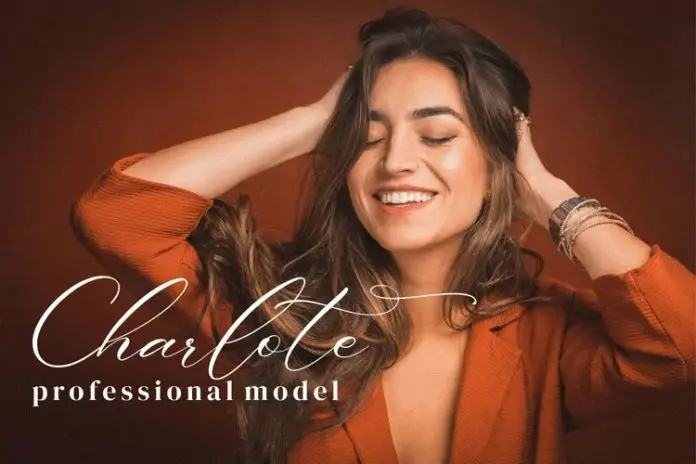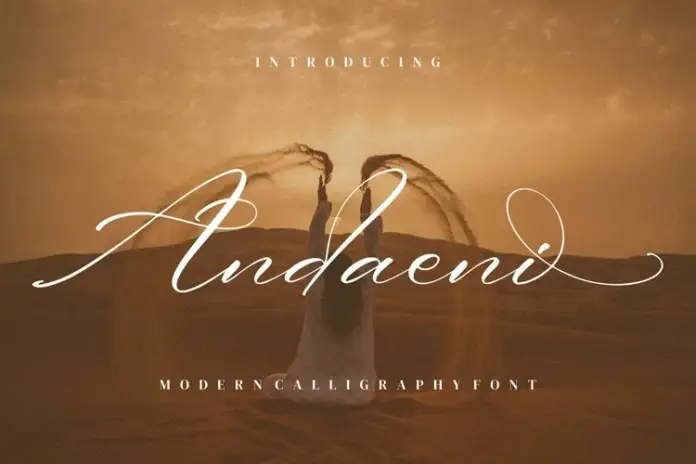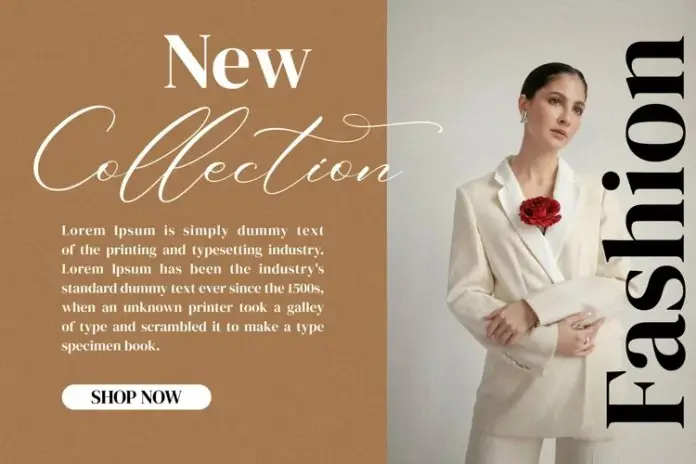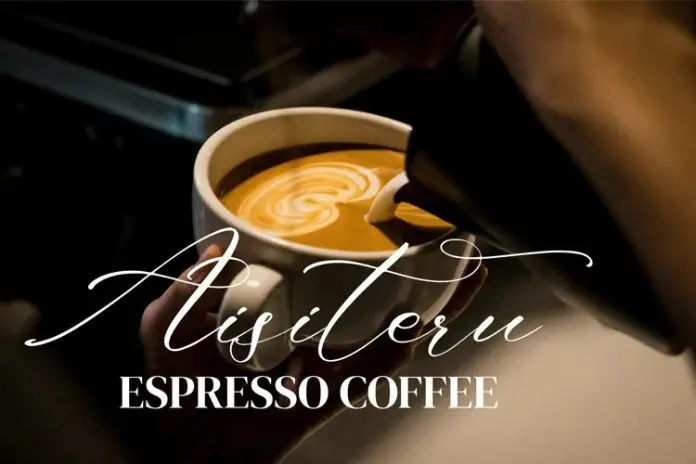
Andaeni Calligraphy Font
The Andaeni Calligraphy Font is a beautifully crafted typeface that embodies elegance and sophistication. Perfect for a variety of applications, this font is ideal for branding, logos, invitations, and any project that requires a touch of artistry.
• Stylish calligraphy design
• Easy to read and aesthetically pleasing
• Ideal for use in print and digital media
• Great for creating stunning wedding invitations or personal branding projects
• Combine with sans-serif fonts for a modern look